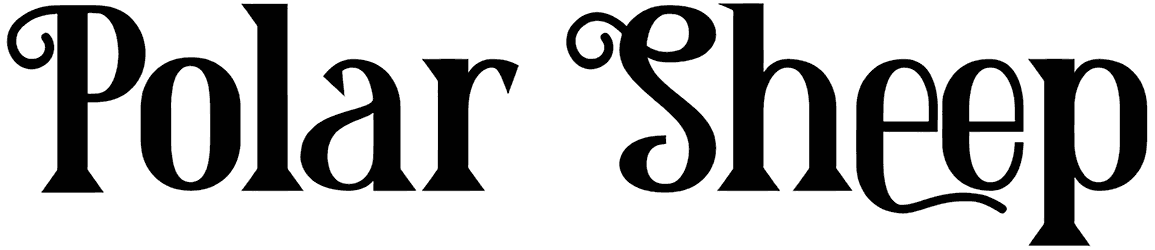
Polar Sheep Font
Polar Sheep is one of the prominent fashions that attracts the eyes with its intricate details. This classic font is designed to convey a sense of luxury and sophistication and has the power to turn any piece of text into a work of art.
So if you are looking to create a luxurious image for a high-end brand or you are busy designing fashion labels and jewelry logos, be sure that Polar Sheep will be able to make your projects shine.